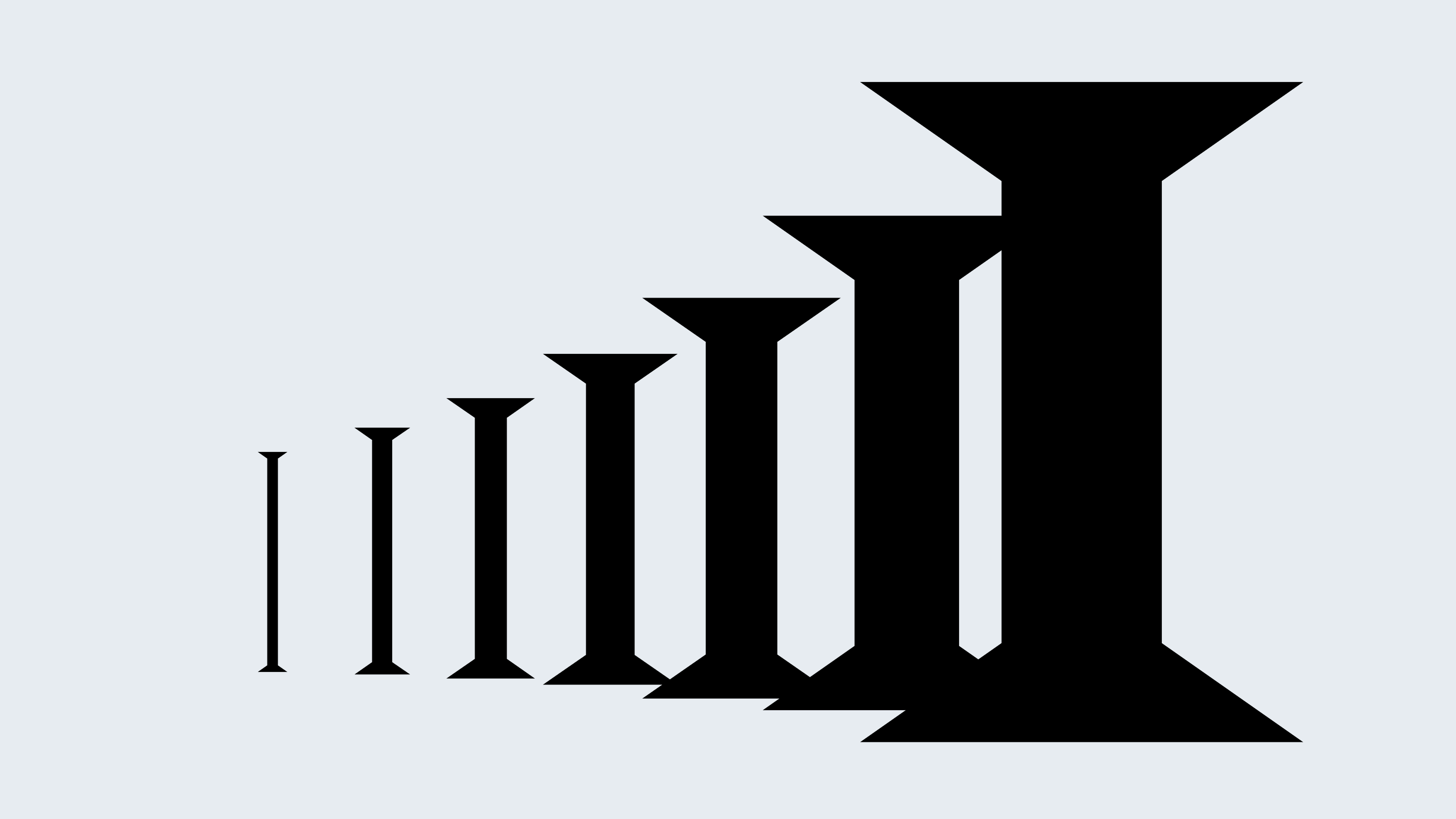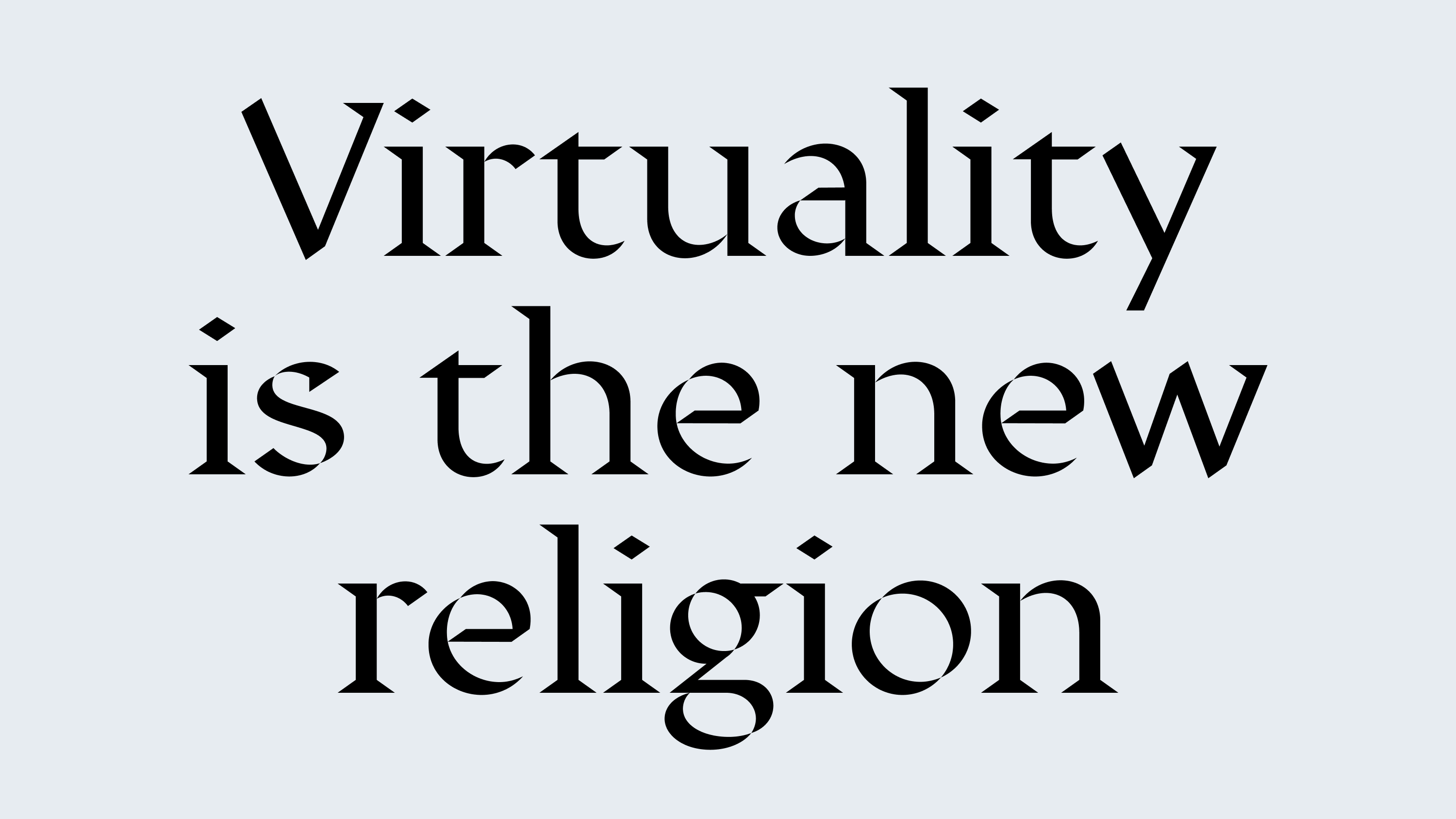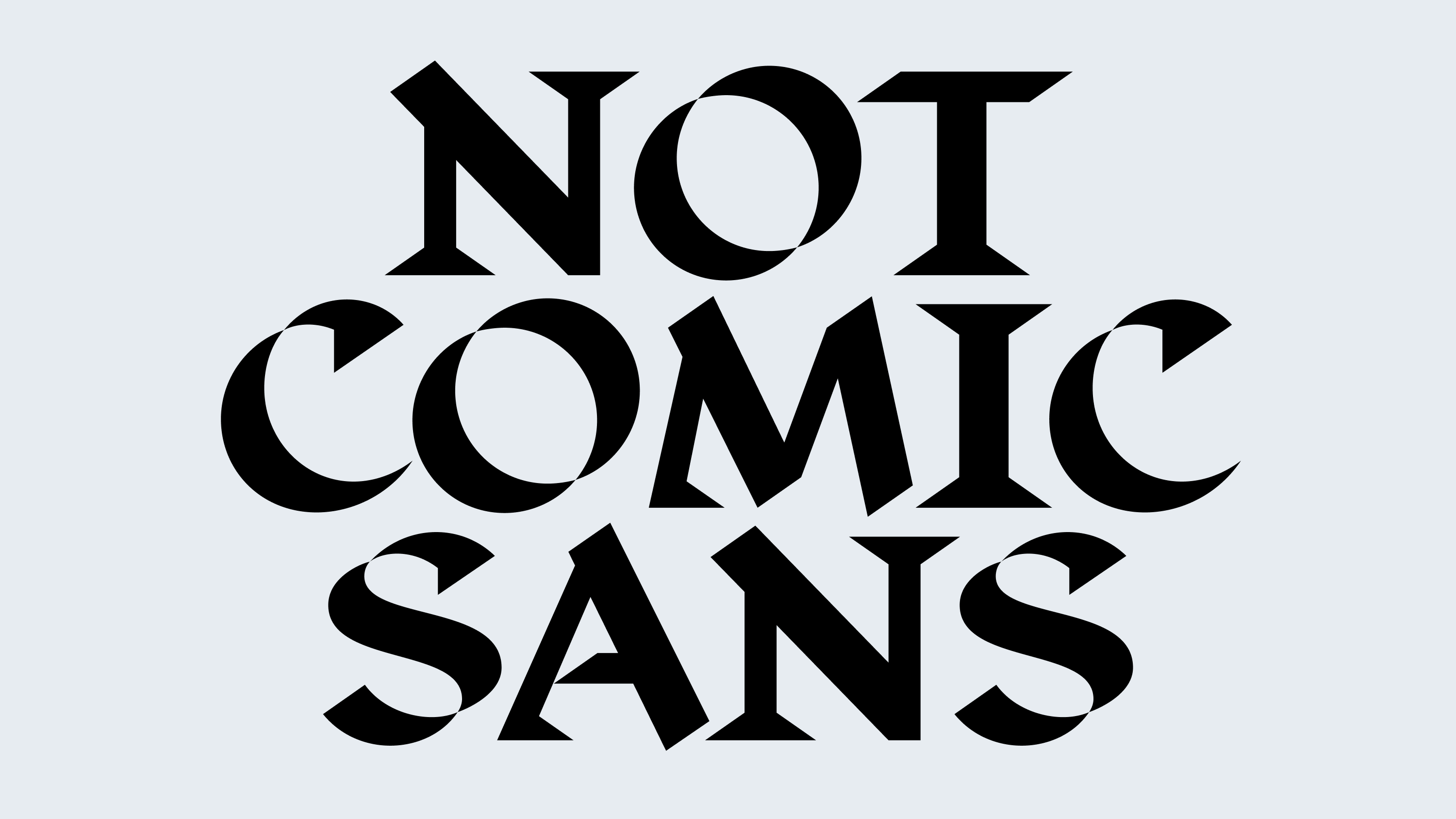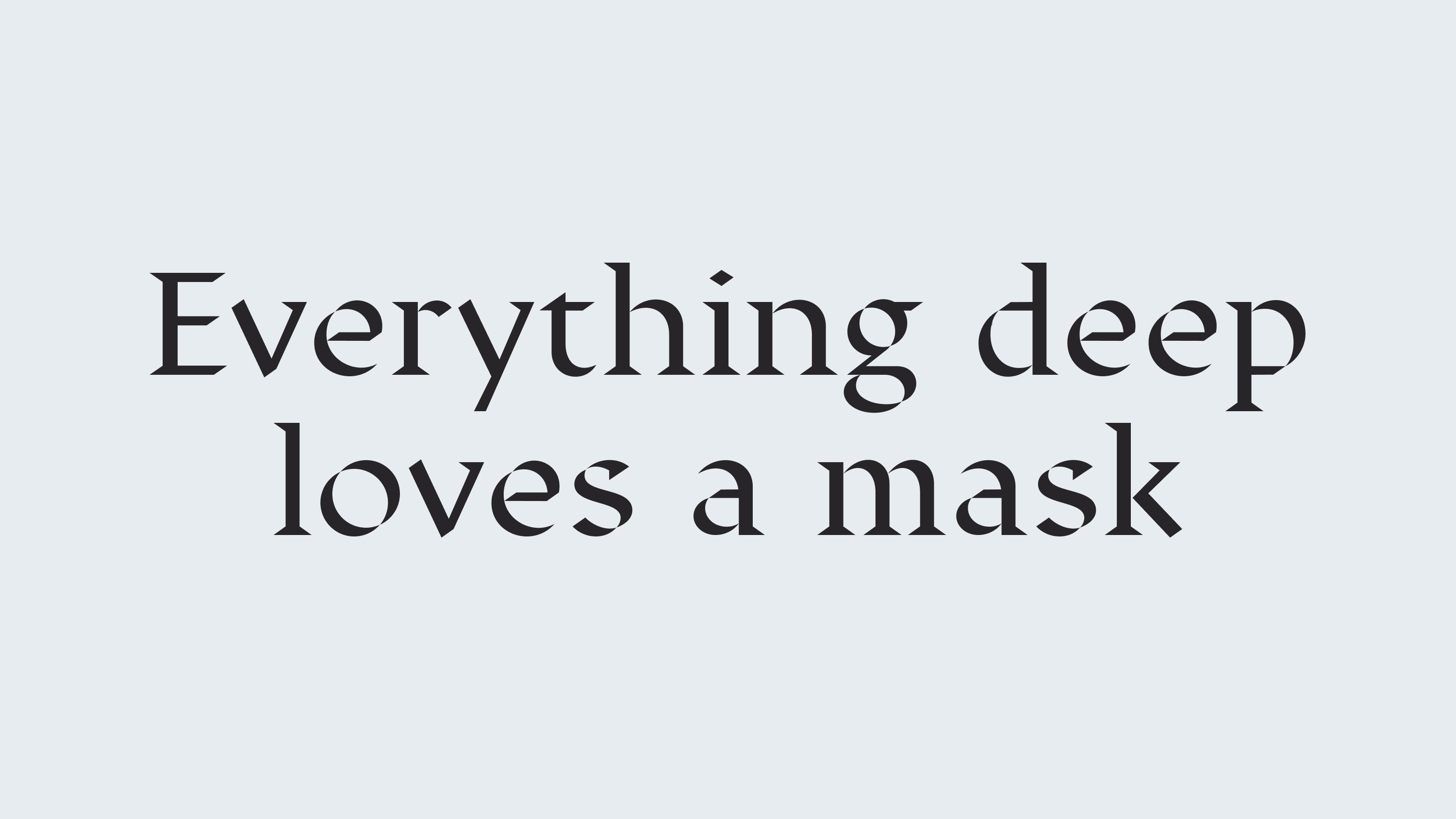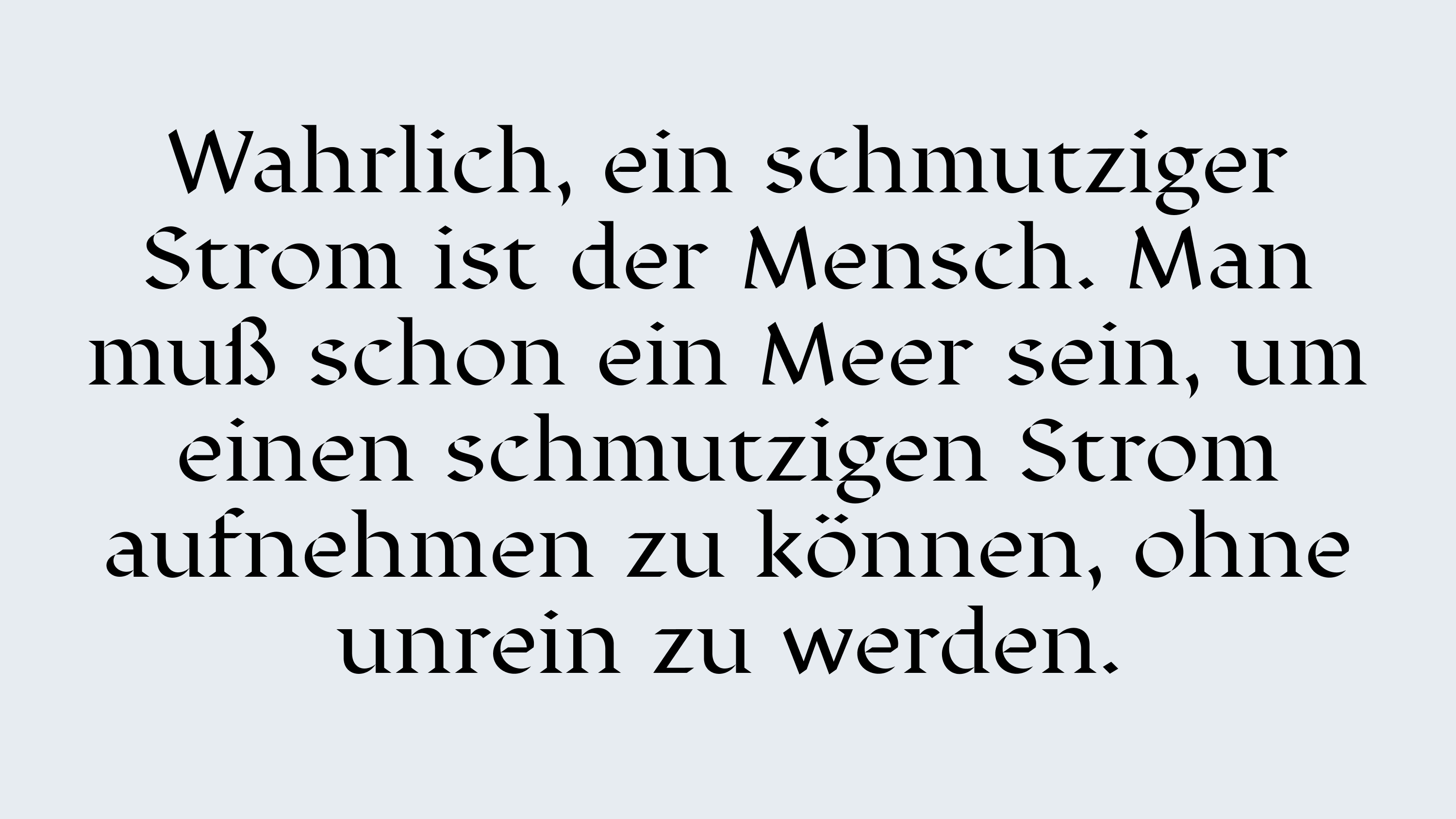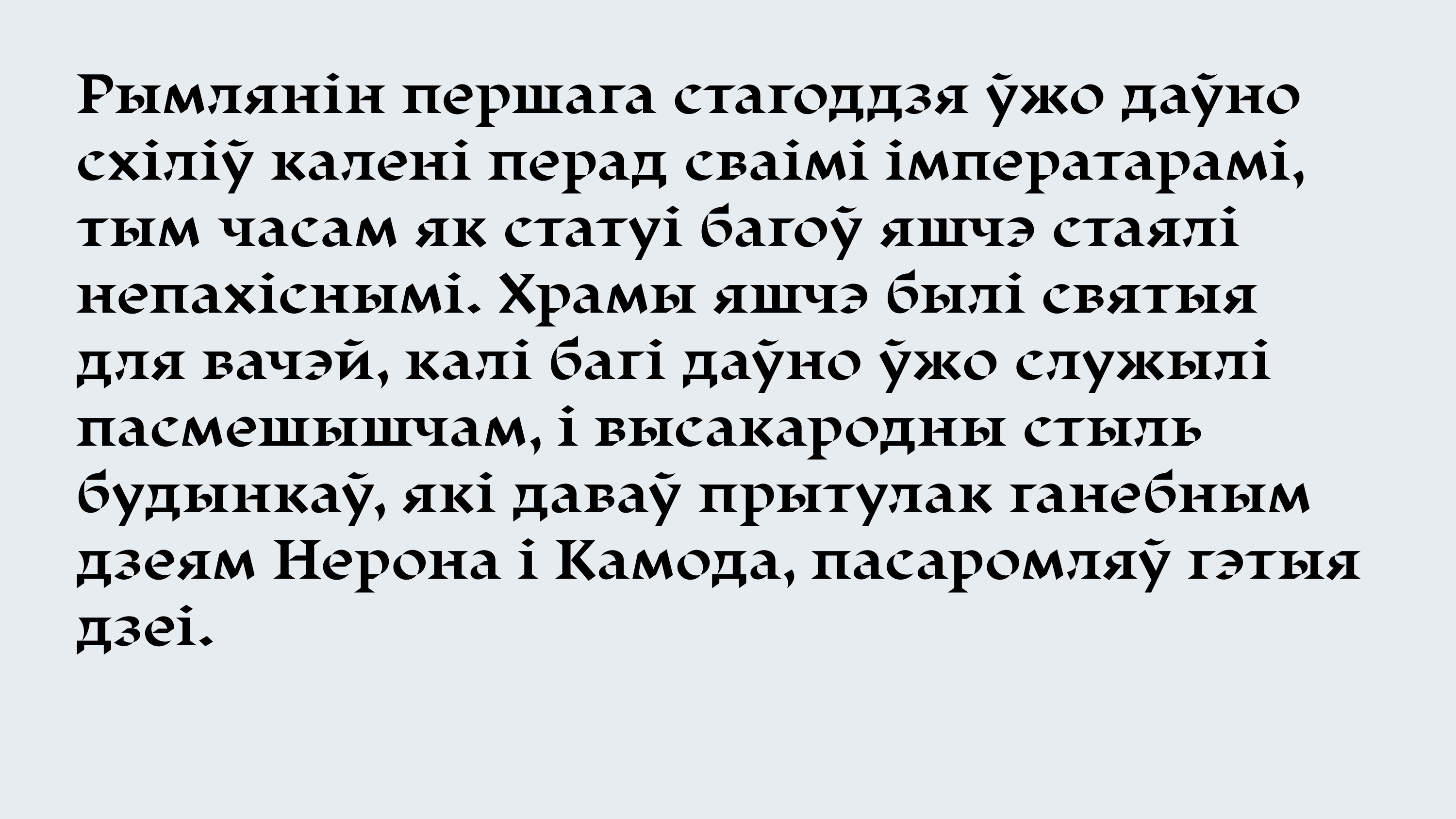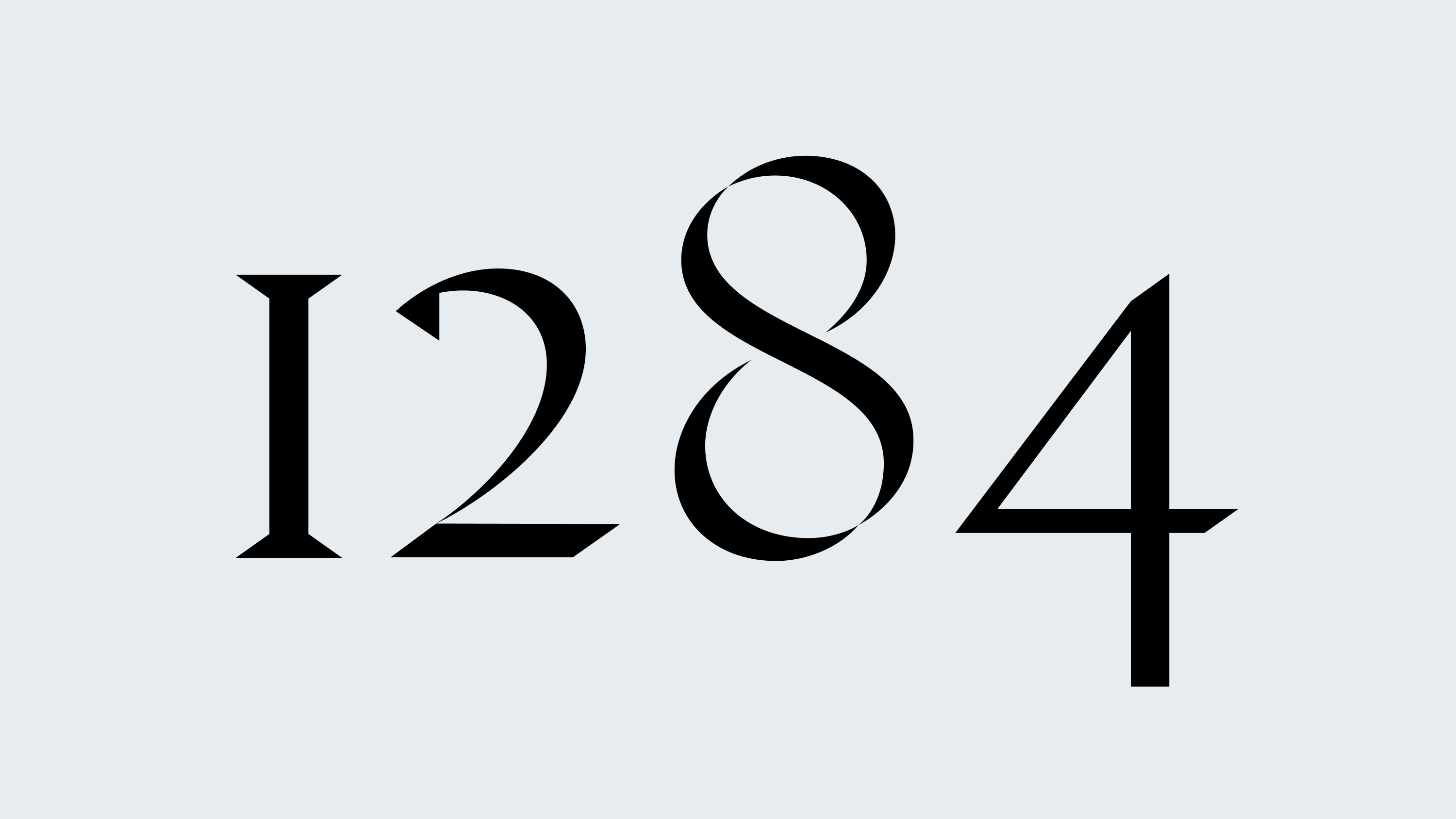
Displace Serif
Family
7 styles
1 variable
Scripts
Latin, Cyrillic
Features
Oldstyle/Lining Figures
Designer
Denis Serebryakov
Displace Serif is an evolution of the Displace type family, reinterpreted through the logic of a Roman serif. It’s not just a matter of adding serifs — it’s a shift into a different layer of form.
This is a serif with flaws, where the flaws are not weaknesses but an aesthetic; not chaos, but structural deformation. The typeface includes seven upright weights of varying density, which directly influence the character of the serifs — from barely suggested to prominent structural features. In many places, the serifs are absent altogether.
Overall, Displace Serif is not what you’d expect from a serif typeface — though its internal logic still follows the movements of a broad-nib pen. It operates in a state of sustained tension between classicism and disruption — a precise, deliberate intervention into the canon.